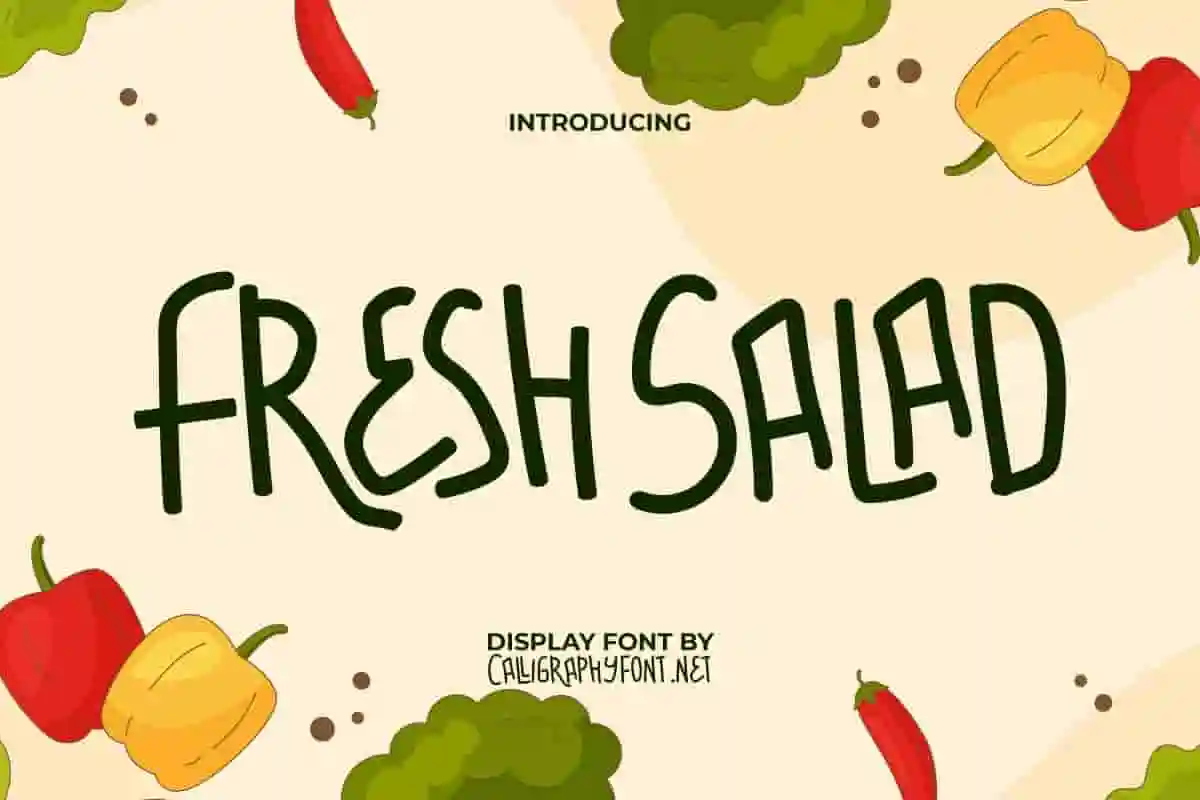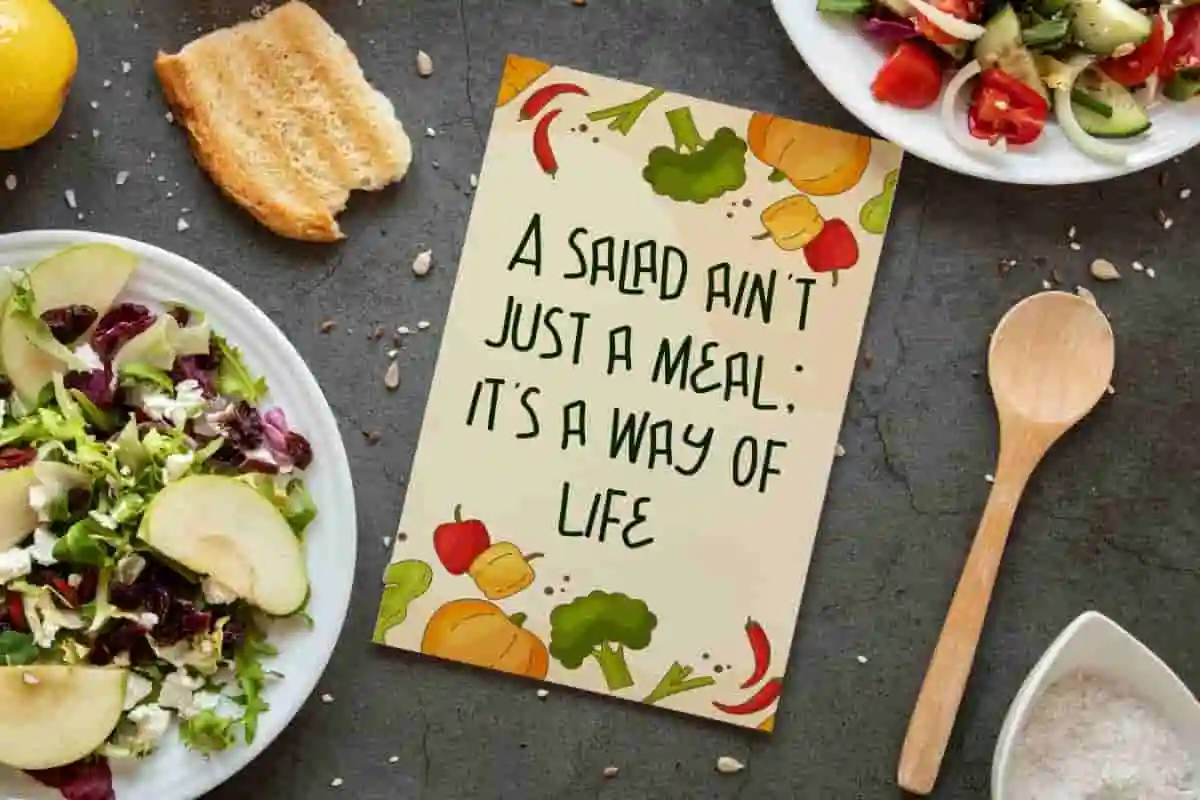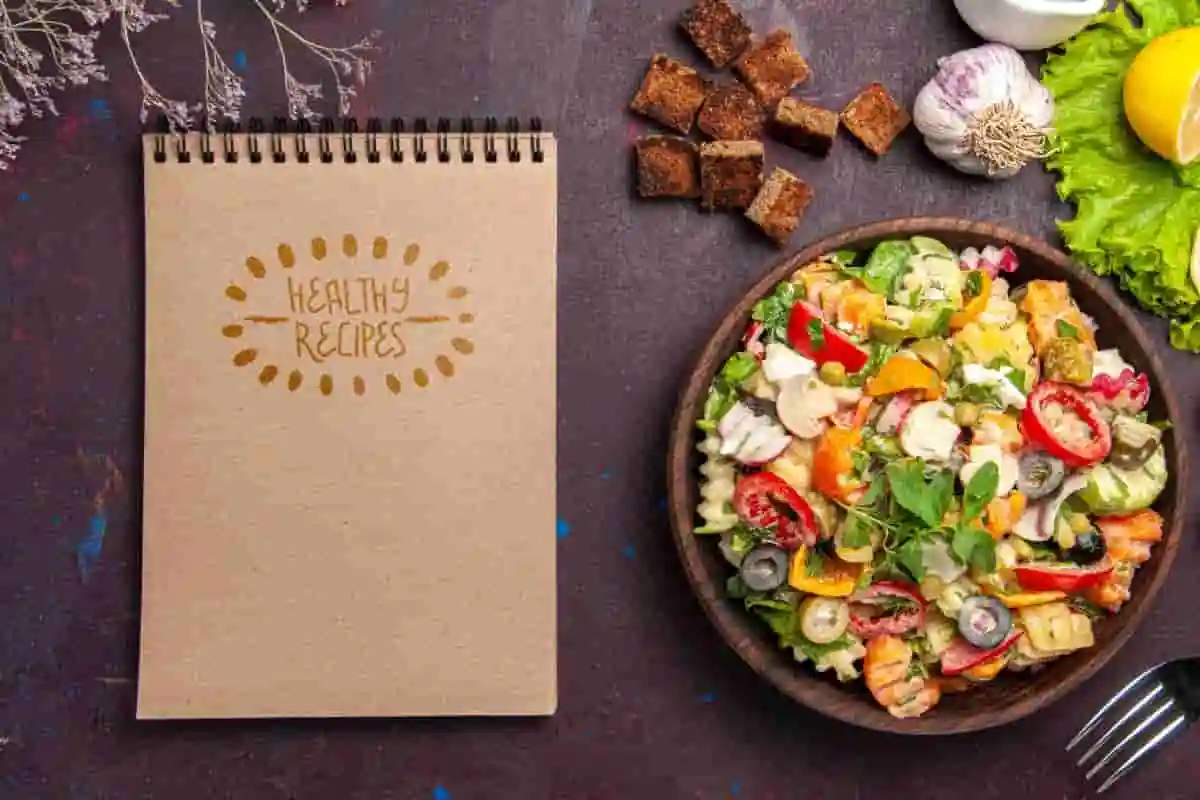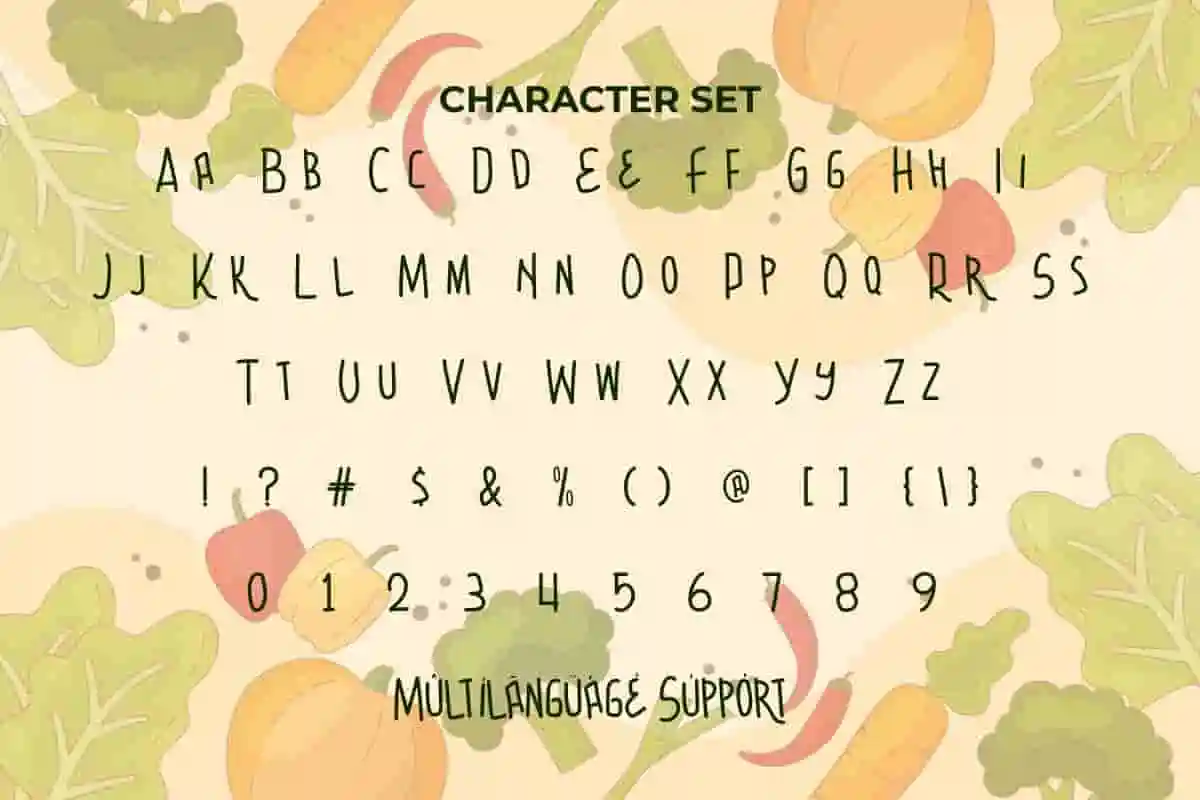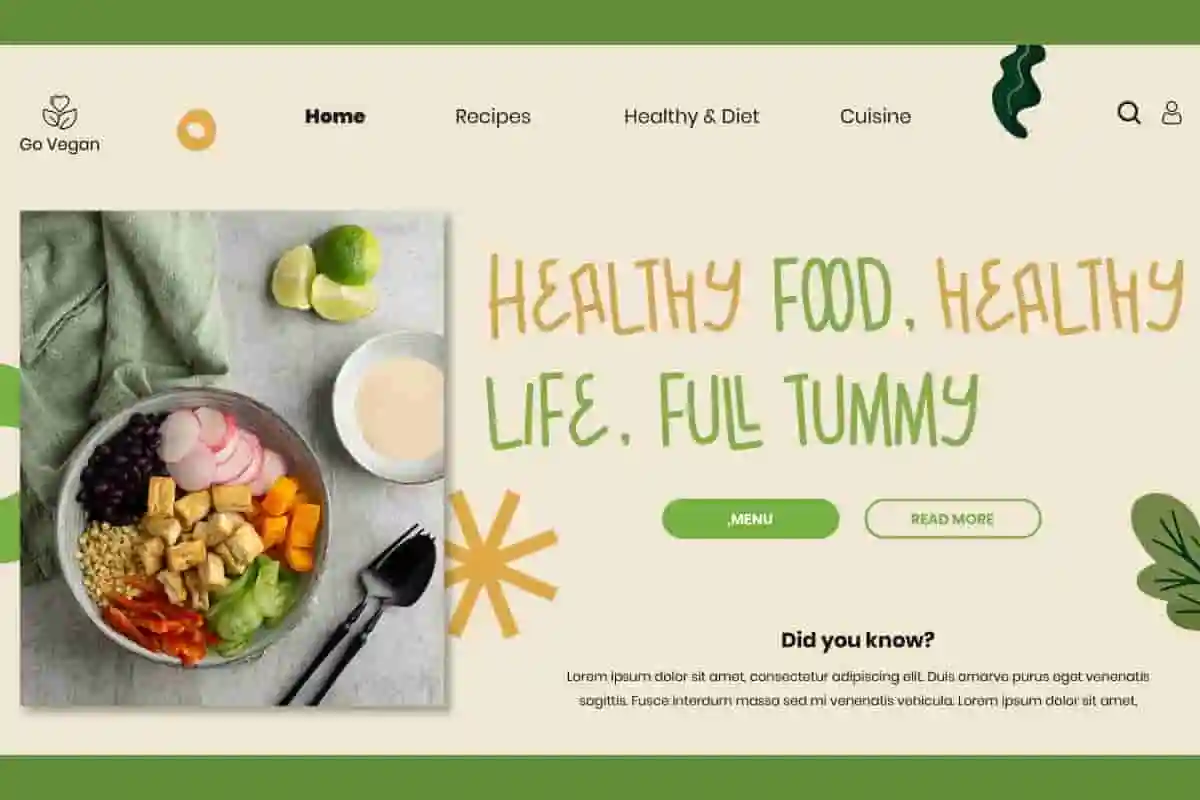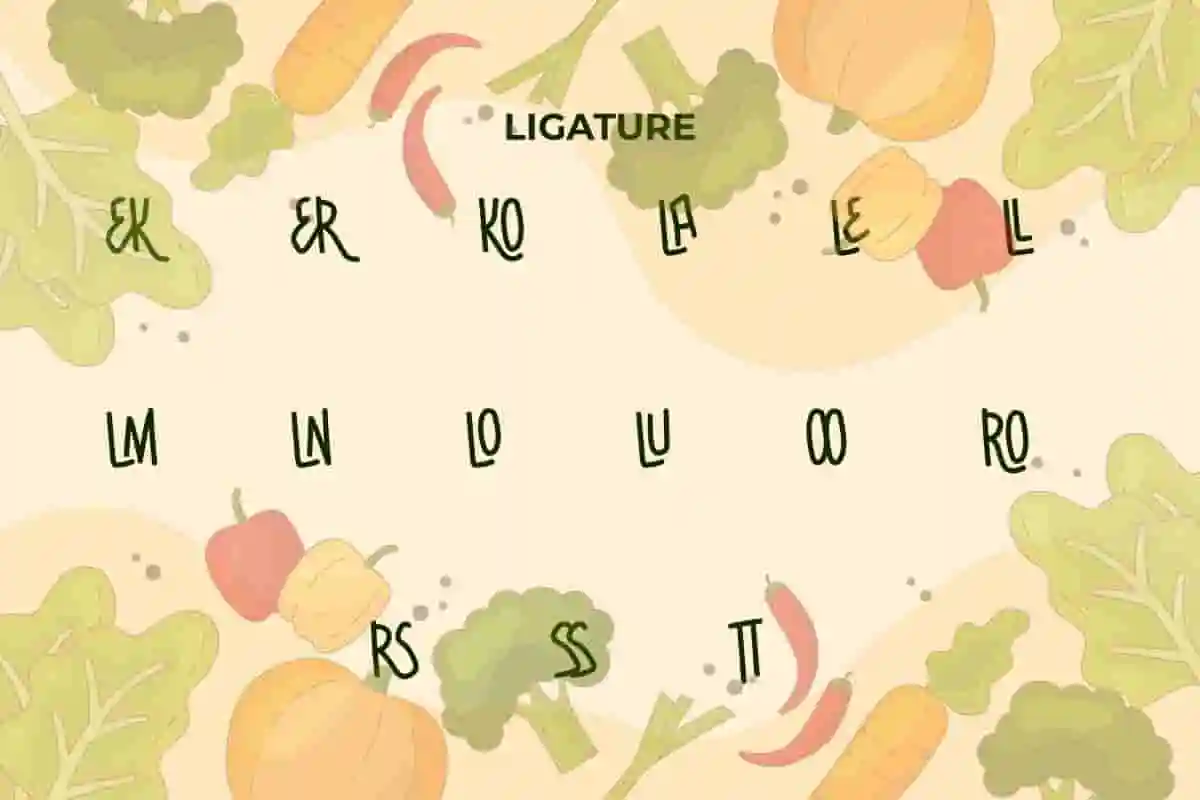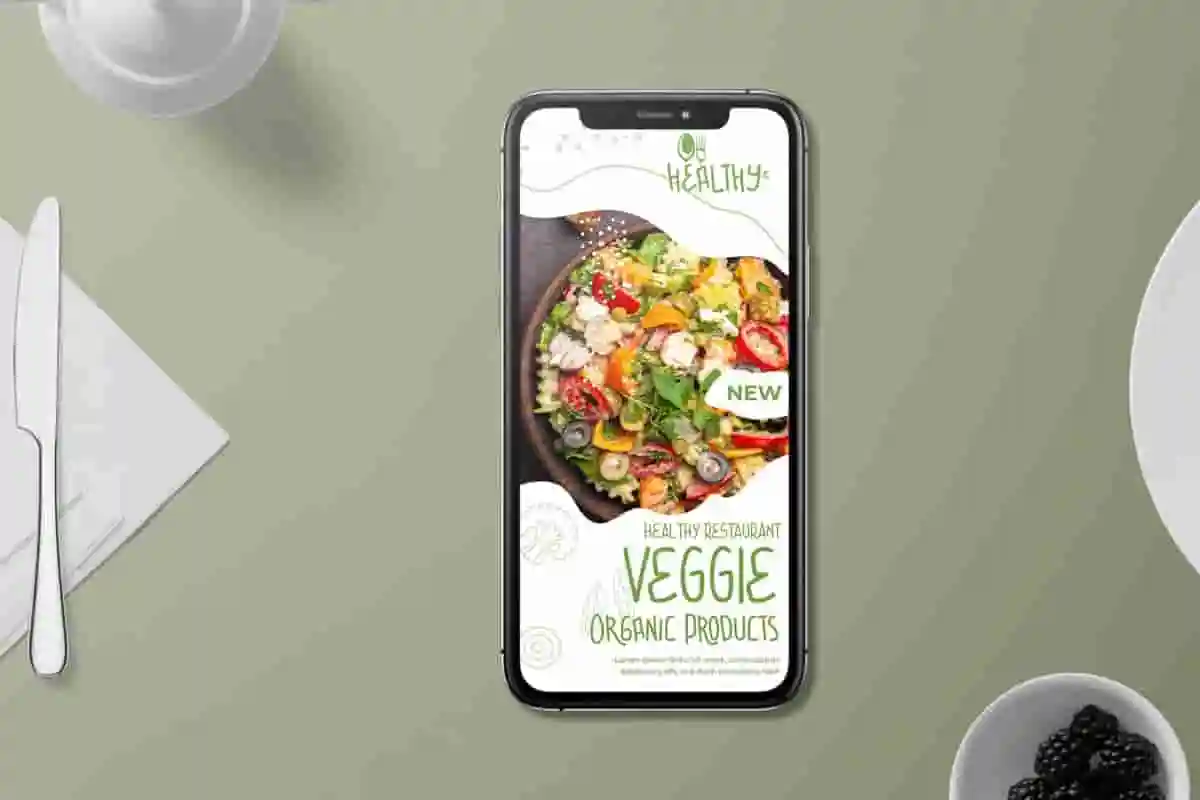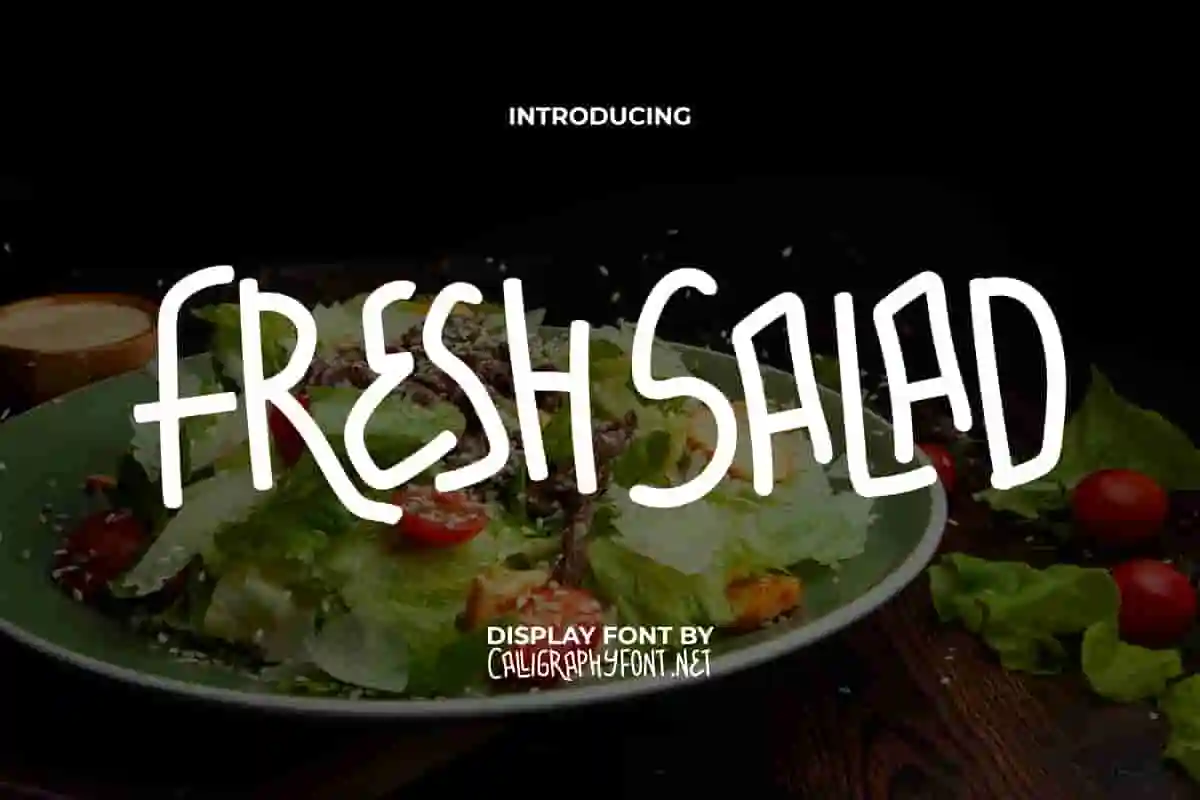
Fresh Salad Display Font
Fresh Salad Font is a trendy cute and fresh display font that carries the fun feel and comic theme. Unleash your imagination in more vivid and memorable projects!
Fresh Salad Font is a trendy cute and fresh display font that carries the fun feel and comic theme. This hand-drawn font is thoughtfully and creatively designed to give your writing a special and personal look. Perfect for apps, blogs, brochure, cards, covers, flyer, invitation, logo design, posters, social media banners, stationery, stickers, title, watermarks, website and much more.
Introducing Fresh Salad Display Font, a lively and energetic typeface designed to bring freshness and fun to your creative projects. Inspired by the crispness of fresh greens and vibrant veggies, this font adds a natural, modern twist to your designs. Perfect for food branding, menus, packaging, social media graphics, and lifestyle projects, Fresh Salad is ideal for businesses that want to convey health, vitality, and freshness. Its clean, bold lines combined with playful shapes make your text pop with personality and clarity.
Refresh your creative projects with Fresh Salad Display Font, a vibrant and playful typeface inspired by the natural beauty of fresh produce. With its clean lines and lively character shapes, this font is perfect for anyone wanting to add a burst of energy and vitality to their work. Whether you’re designing menus, food packaging, branding, social media posts, or lifestyle content, Fresh Salad offers a modern, fresh look that stands out. Its bold yet friendly style ensures your message is clear, inviting, and memorable.
Fresh Salad Display Font, the perfect typeface to infuse your projects with vitality and a crisp, modern feel. Ideal for health-focused brands, organic products, restaurant menus, packaging, and social media graphics, Fresh Salad delivers a clean and vibrant look that helps your message stand out in any crowd.
- Fresh & Playful Look
- Ideal for Food & Wellness Brands
Fresh Salad Font is a super fantastic display of capital letters with ligatures that convey a message of vibrant energy and creativity. Engage your projects with this collection of fonts! A perfect choice to bring joy and enthusiasm to your amazing work! You can use it for animation, cafeteria, creator content, culinary, dessert lessons, food franchise, graphic design, handicrafts, photography, plant cultivator, printing, publishing, restaurant, vlogger etc.
Fresh Salad Font comes with a complete set of ALL CAPS with different size between Uppercase and lowercase, Number, a large range of Punctuation, Symbol and Ligature. It is supported with multilingual characters and ready to use both on Windows machine or Mac with simple installations. It’s tested to work well in the Adobe Apps (Illustrator, Adobe InDesign, Adobe Photoshop) CorelDraw, and others. PUA Encode Characters means you can access all the characters easily – Fully accessible without additional design software.